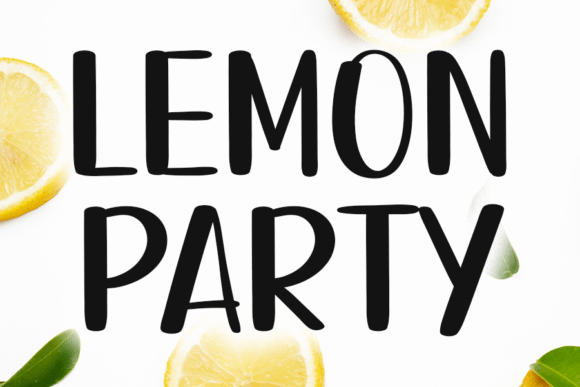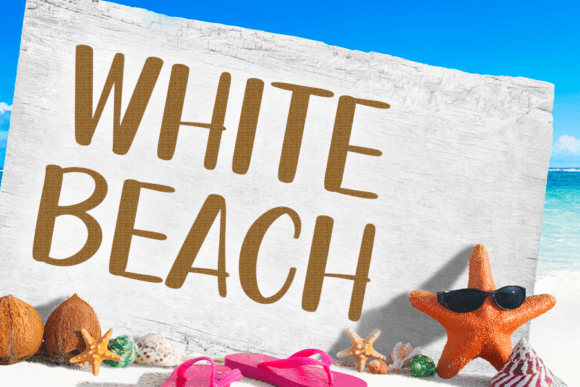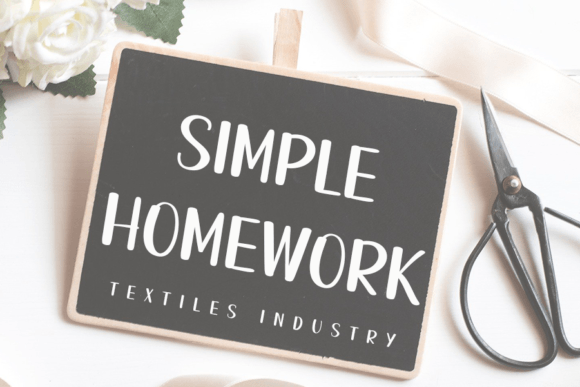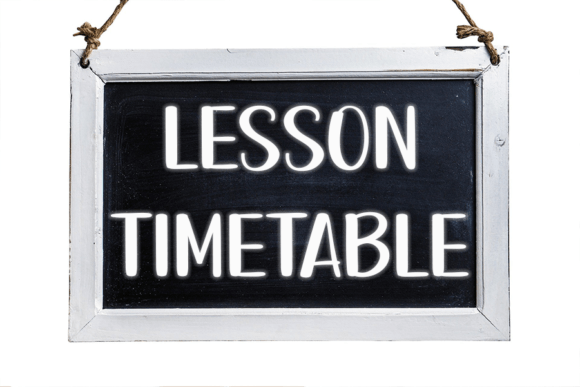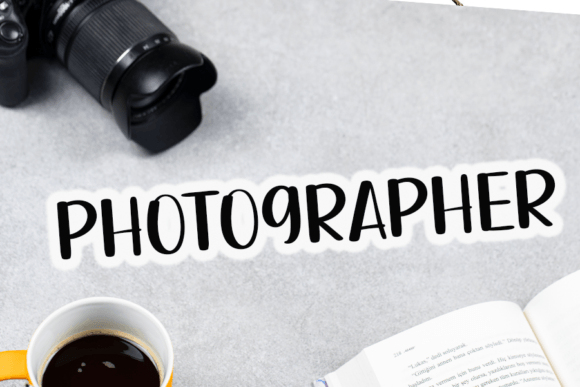
About Lemon Party
Lemon Party is a neat and beautiful handwritten font described by an elegant touch, perfect for your favorite projects. Fall in love with its incredibly distinct and timeless style, and use it to create spectacular designs!